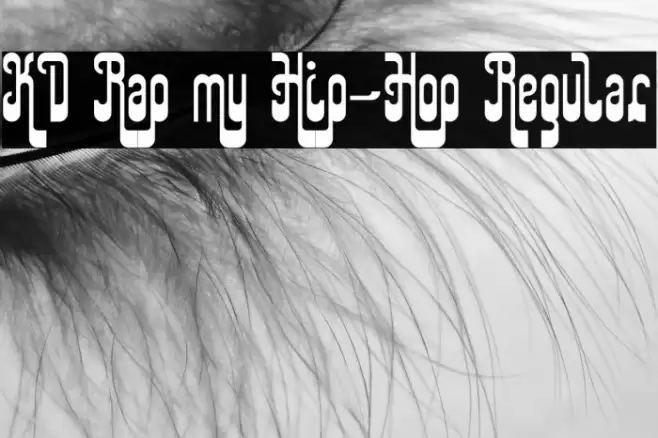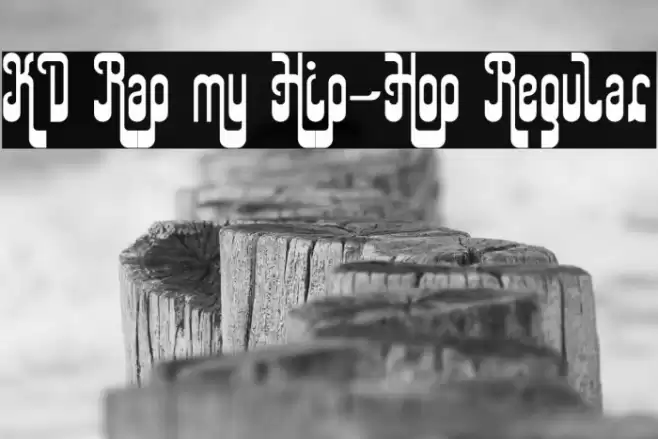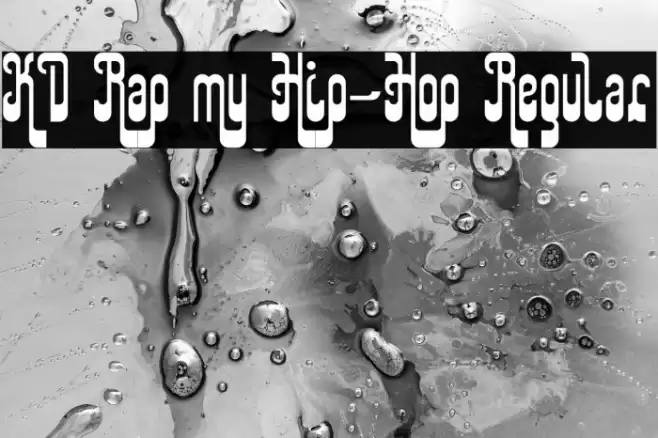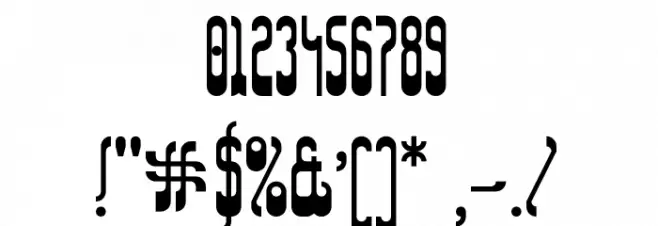
KD Rap my Hip-Hop Regular Font
KD Rap my Hip-Hop Regular Description
This font features a bold and dynamic style with a distinct urban flair. The characters are designed with a rhythmic flow, incorporating unique curves and angles that give it a modern, street-inspired aesthetic. The uppercase letters are particularly striking, with exaggerated vertical strokes and playful loops, while the lowercase letters maintain a consistent style that complements the uppercase. Numbers and special characters follow the same bold and expressive design, making the font versatile for various creative applications. The overall look is both contemporary and edgy, perfect for projects that require a strong visual impact.
A bold, urban-inspired font with dynamic curves and a modern aesthetic from Regular fonts.
- Proposed Projects: Ideal for music album covers, streetwear branding, event posters, and urban-themed designs.